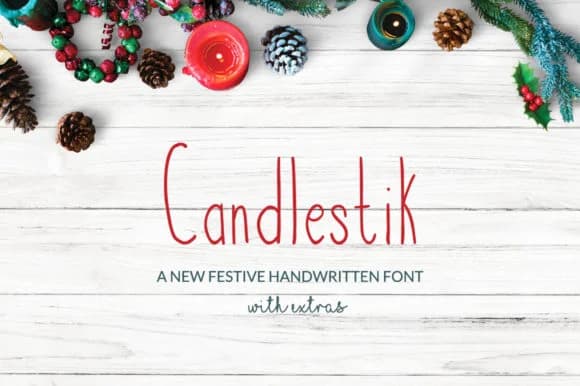
Candlestik by Twenty Two is a handwritten script font that brings warm, celebratory energy to seasonal designs. The typeface combines flowing letterforms with clear readability, making it equally effective for large displays and smaller applications where legibility remains a priority even in intricate layouts.
This script works beautifully for holiday greeting cards where a personal touch complements the seasonal message, festive packaging labels for gift boxes and seasonal retail products, and custom Christmas gift tags that add character and warmth to wrapped presents. It's also well-suited for holiday invitation designs, seasonal social media graphics and promotional materials, and handmade craft signage for small businesses and craftspeople. The font includes 20 hand-drawn illustrations with holiday-inspired details, giving designers extra decorative elements to complement their layouts without needing to source additional graphics separately.
The technical construction supports extended language coverage, ensuring consistency across multiple character sets. The letterforms maintain a consistent stroke weight that preserves legibility even when used at smaller sizes or applied over varied backgrounds. Whether you're creating a batch of personalized holiday cards, designing festive packaging for a boutique product line, or crafting seasonal marketing materials for promotional campaigns, Candlestik's approachable style bridges the gap between formal and playful. Get Candlestik on Creative Fabrica and add a handcrafted seasonal aesthetic to your next project.
Candlestik Font is a script font that shines as a display or heading face. Pair it with a clean sans-serif or serif font for body text β the contrast creates a clear hierarchy while the two styles stay balanced and easy to read.